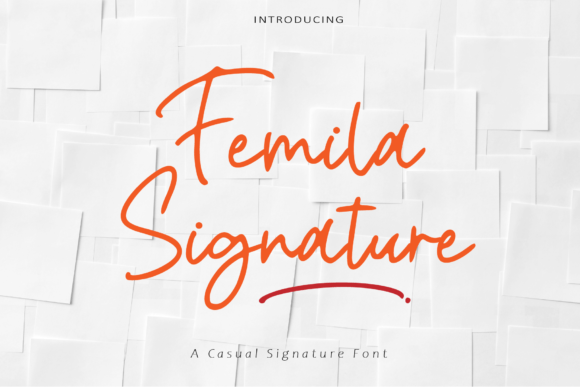
Femila Signature Font: Elevate Your Designs with a Touch of Elegance
In the world of typography, a signature font can make all the difference in creating a lasting impression. Femila Signature, a casual yet sophisticated font, has been expertly crafted to bring a natural, beautiful, and charming handwriting feel to your designs. In this article, we’ll explore the features and benefits of Femila Signature, and how it can elevate your branding projects, logos, wedding designs, and more.
The Story Behind Femila Signature
Femila Signature is the brainchild of expert typographers who aimed to create a font that exudes elegance and sophistication. With a focus on natural handwriting, this font boasts a unique and charming character that sets it apart from other signature fonts. The attention to detail and precision that went into crafting Femila Signature make it an exceptional choice for designers seeking to add a personal touch to their work.
Key Features of Femila Signature
Femila Signature is a versatile font that offers a range of features, making it perfect for various design applications. Some of its key features include:
- Natural Handwriting Feel: Femila Signature’s organic and fluid strokes give it a genuine handwriting feel that’s perfect for designs that require a personal touch.
- Casual yet Elegant: This font strikes the perfect balance between casual and elegant, making it suitable for a wide range of design projects.
- Beautiful and Charming: Femila Signature’s unique character is sure to captivate your audience and leave a lasting impression.
Use Cases for Femila Signature
Femila Signature’s versatility makes it an excellent choice for various design projects, including:
- Branding Projects: Establish your brand’s identity with a unique and memorable signature font.
- Logos: Create a lasting impression with a custom logo that incorporates Femila Signature.
- Wedding Designs: Add a touch of elegance and romance to your wedding designs, invitations, and stationery.
- Social Media Posts: Elevate your social media presence with eye-catching graphics and typography.
- Advertisements: Grab attention with bold and beautiful typography that showcases your message.
- Product Packaging: Make your product stand out with custom packaging that features Femila Signature.
- Product Designs: Incorporate this font into your product designs to create a cohesive brand identity.
- Labels: Create custom labels that showcase your brand’s personality and style.
- Photography: Add a touch of elegance to your photography with custom watermarks and overlays.
- Invitations: Create stunning invitations that set the tone for your event or celebration.
- Stationery: Elevate your stationery with a custom font that reflects your brand’s personality.
Benefits of Using Femila Signature
By incorporating Femila Signature into your designs, you can:
- Enhance Brand Identity: Establish a unique and recognizable brand voice with a custom signature font.
- Increase Engagement: Captivate your audience with beautiful and charming typography that sets you apart.
- Save Time: Use a pre-designed font that saves you time and effort in creating custom typography.
- Improve Consistency: Ensure consistency across your designs with a font that can be used across various platforms.